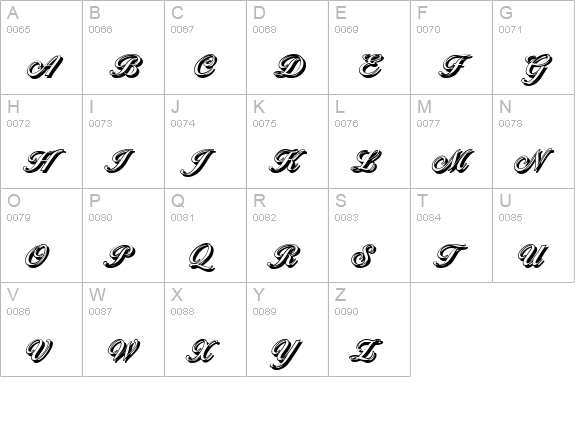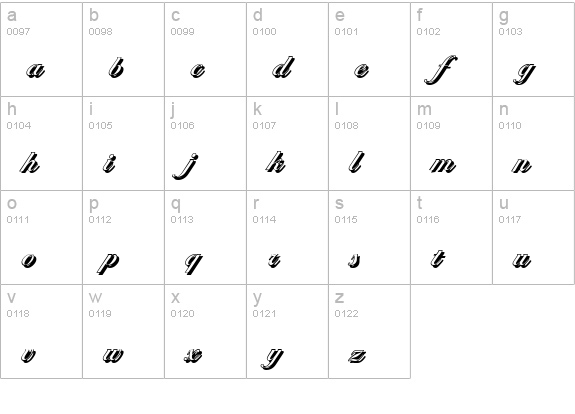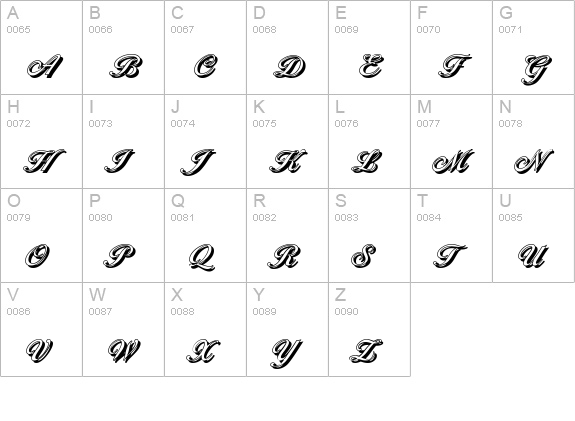
BallantinesShadow-Medium-Regular is a balanced, medium-weight variant in the BallantinesShadow typeface family \xE2\x80\x94 well suited to sub-headlines, navigation, and balanced editorial work.
BallantinesShadow-Medium-Regular is a stylish and versatile font that exudes a sense of modern sophistication with a touch of elegance. This font features clean lines and sharp edges, making it perfect for a wide range of design projects, from branding to editorial design. Its medium weight strikes the perfect balance between boldness and readability, making it ideal for headlines, titles, and other prominent text elements. The unique shadow effect adds depth and dimension to the text, giving it a dynamic and eye-catching appearance. Whether used for print or digital purposes, BallantinesShadow-Medium-Regular is sure to make a statement and capture the attention of your audience. Best of all, BallantinesShadow-Medium-Regular is available for free download at FontsMarket.com. This means you can easily access and use this stunning font in your projects without any cost. Don't miss out on the opportunity to enhance your designs with this beautiful and versatile typeface. Download BallantinesShadow-Medium-Regular today and take your creative projects to the next level!